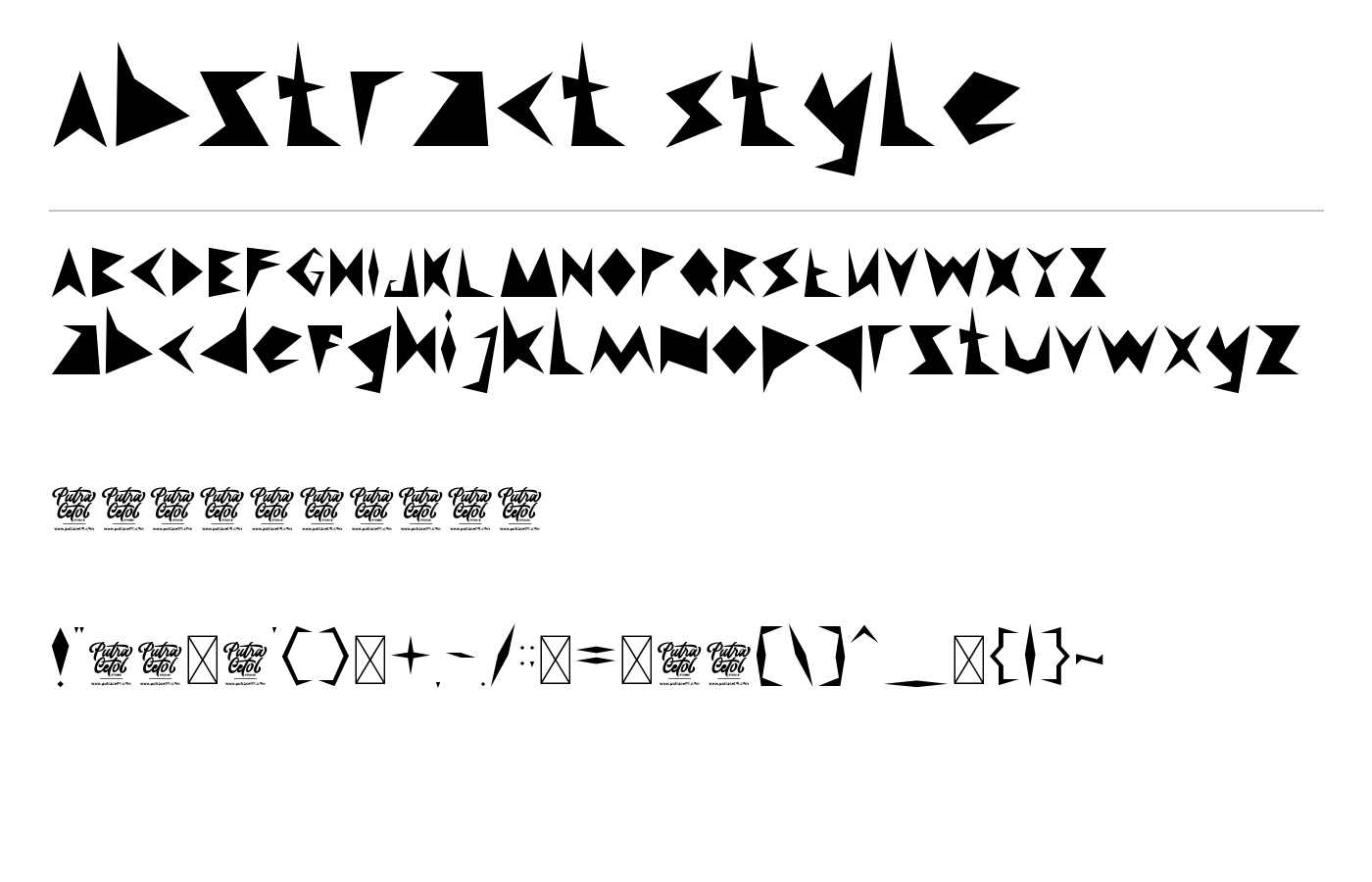
Abstract Style Font is a bold and sharply angular sans serif typeface with a modern, edgy feel. Its high contrast, narrow width, and geometric shapes give it a striking, avant-garde personality that works well for creative headlines, logos, and designs aiming to make a strong visual impact. This font is best suited for projects that want to convey uniqueness, energy, and an abstract artistic vibe.
Abstract Style Font
About Abstract Style Font